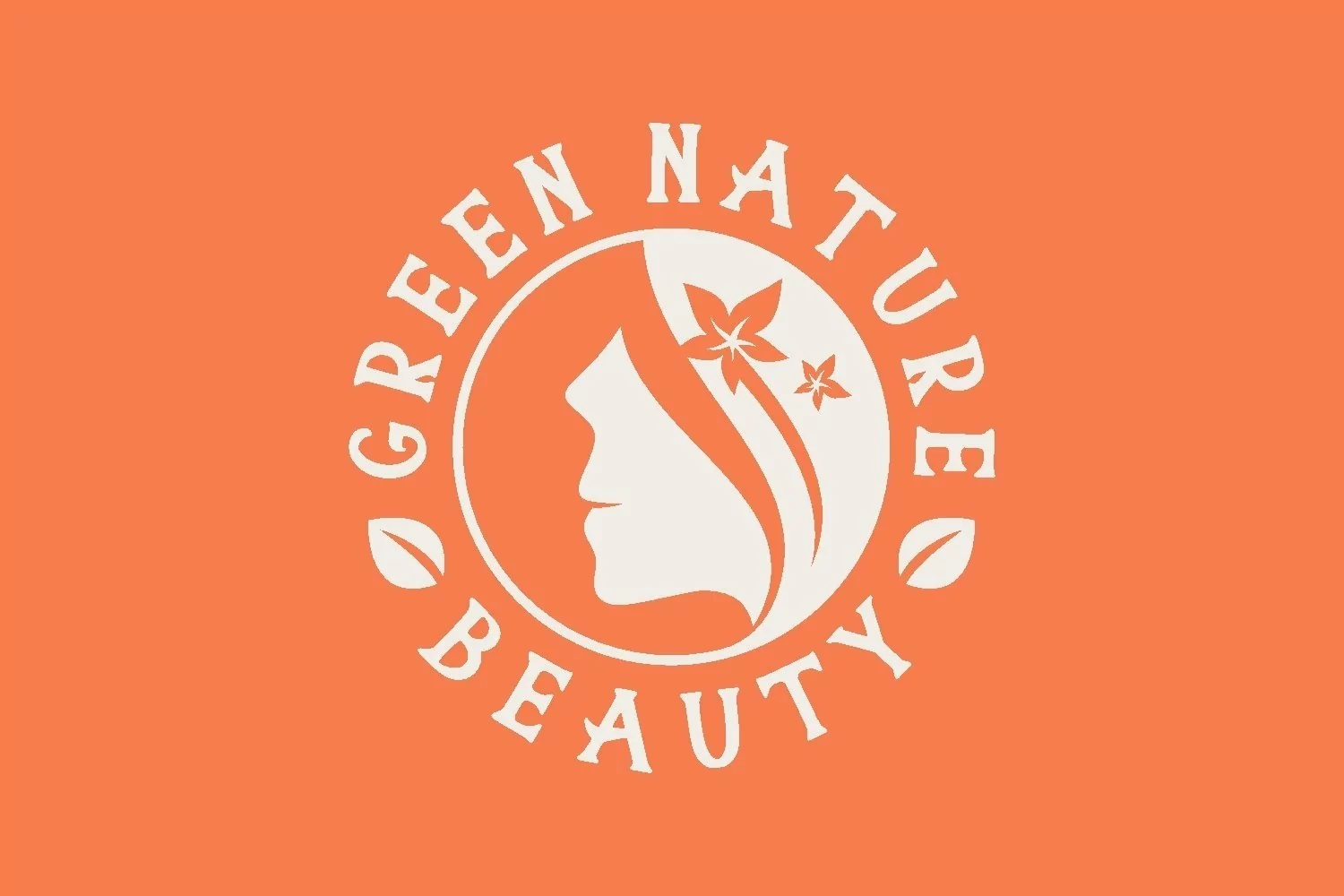
Violentan is a stylish sans serif typeface come with modern themes. We create the font most simple and clean. It matches applies in some designs such as the logotype, brand, packaging, quotes, poster, shirt, book, wedding invitation and more custom design. The features uppercase, lowercase, numeral, punctuation & symbol, multilingual support.